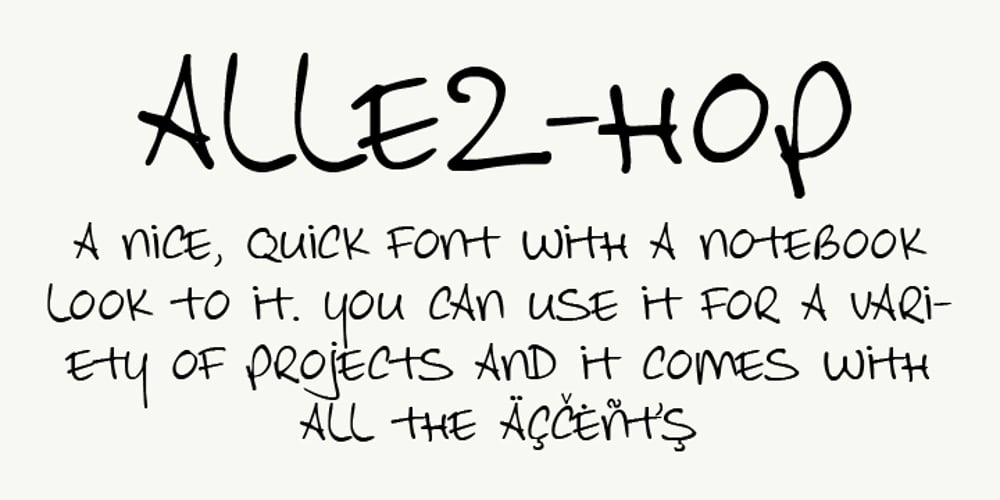
Allez Hop
Allez Hop font
Allez Hop Font Family was designed by David Kerkhoff and published by Hanoded. Allez Hop contains 1 styles and family package options. Allez Hop is a very useful font: it comes with all accents, bells and whistles and has been created using scans of handwritten text. It has a certain ‘quickness’ to it, not unlike someone jotted down a couple of lines on a notepad.